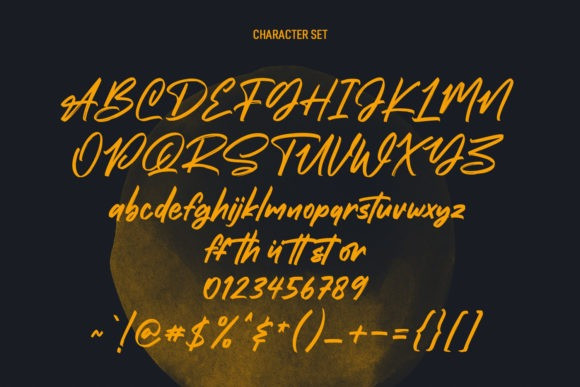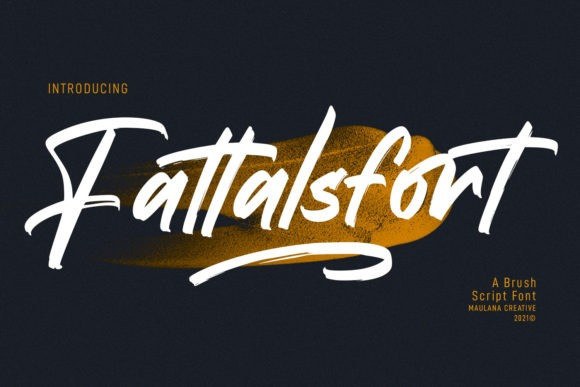
Fattalsfort Font
Fattalsfort Brush Font is a beautiful, paint brushed handwritten font. Fall for its ravishing style and use it to create gorgeous wedding invitations, beautiful stationary art, eye-catching social media posts, and much more!